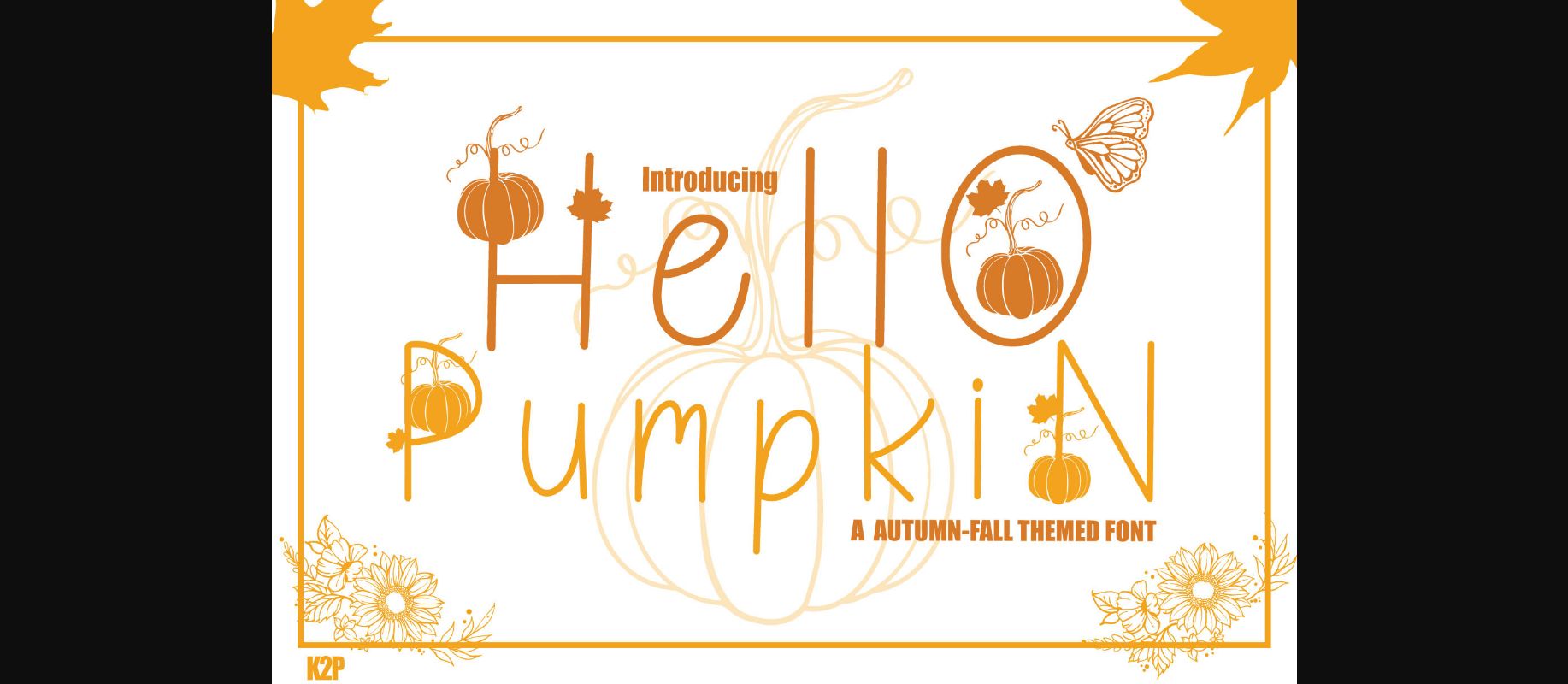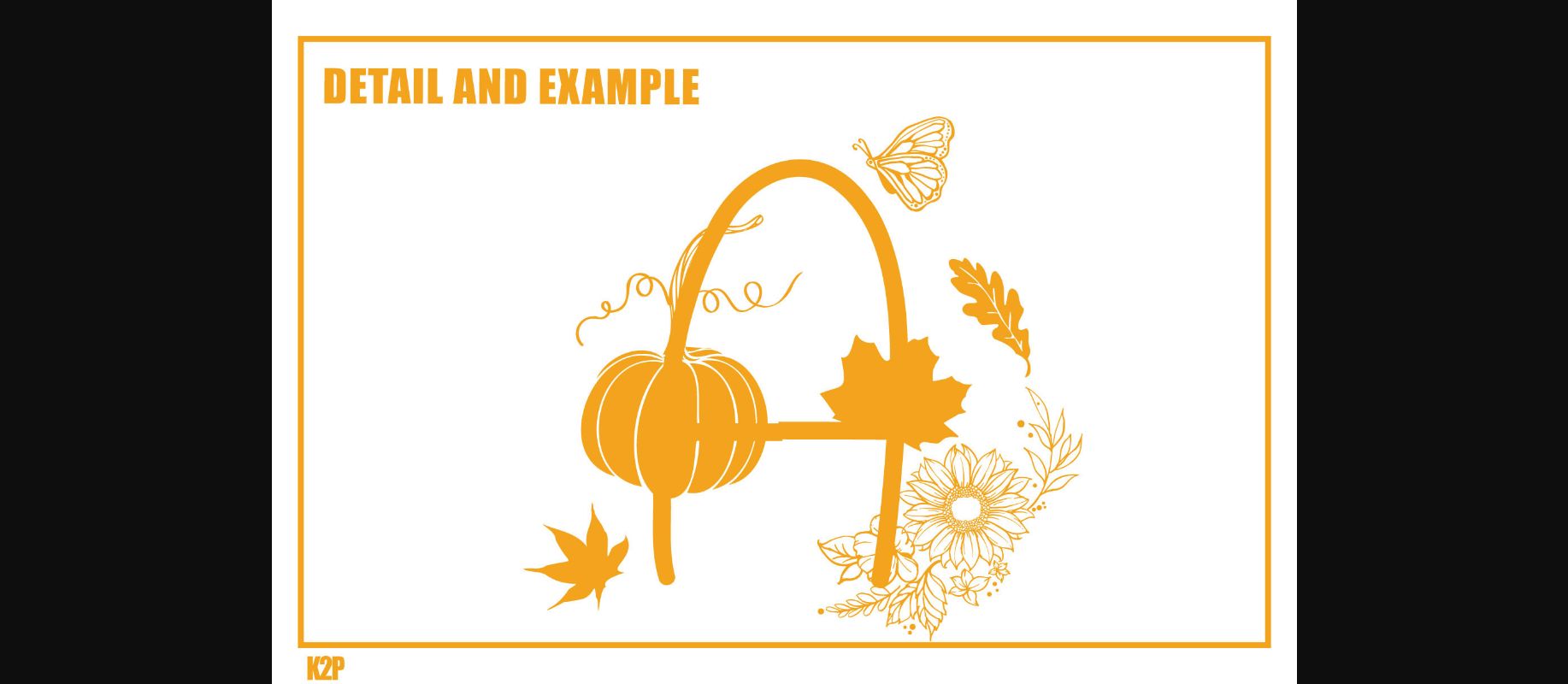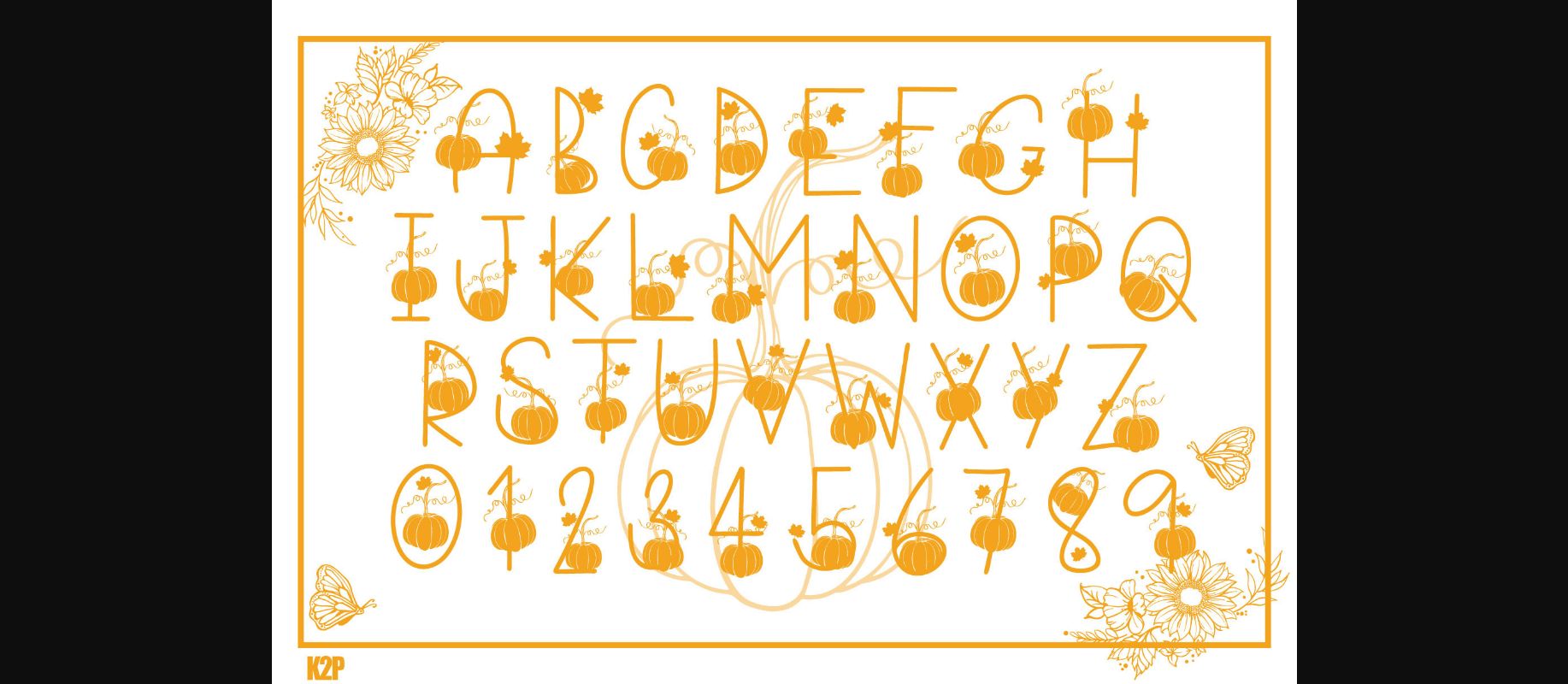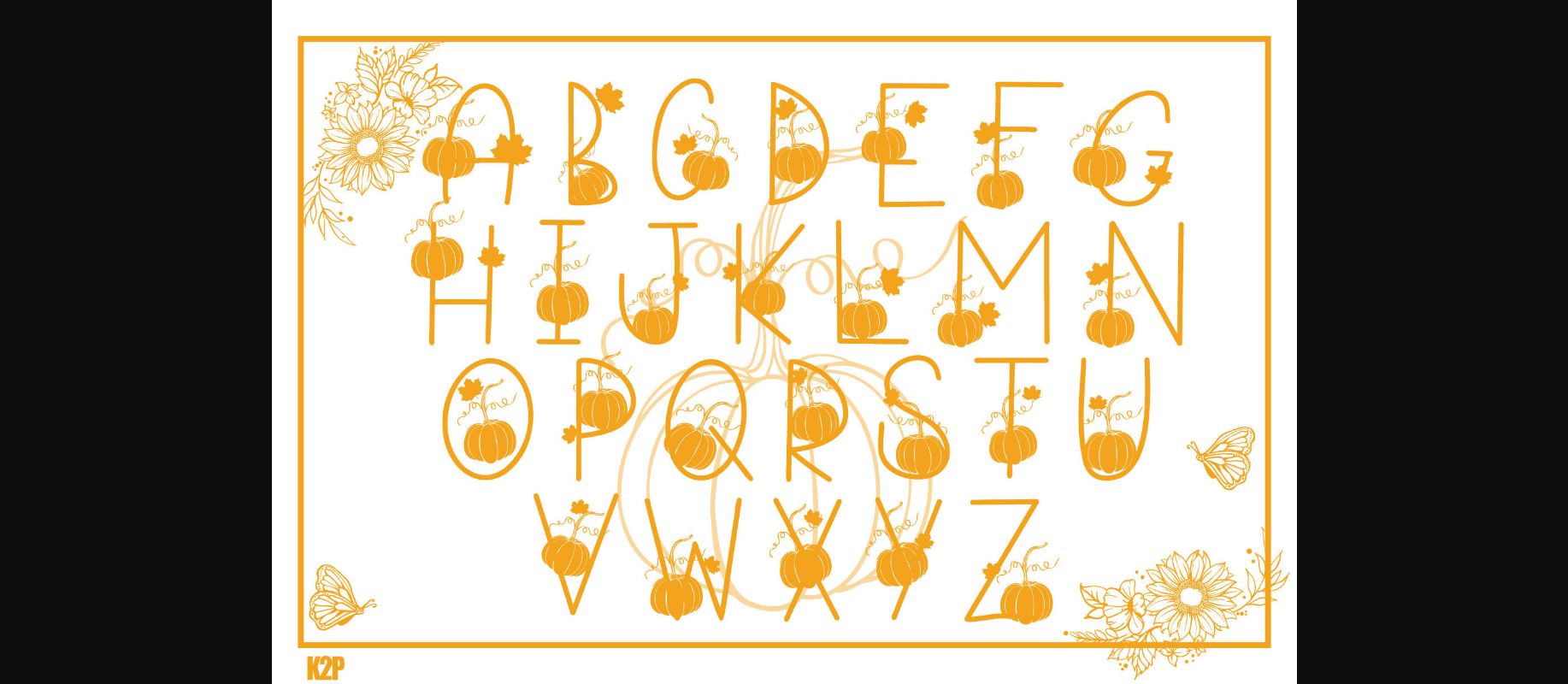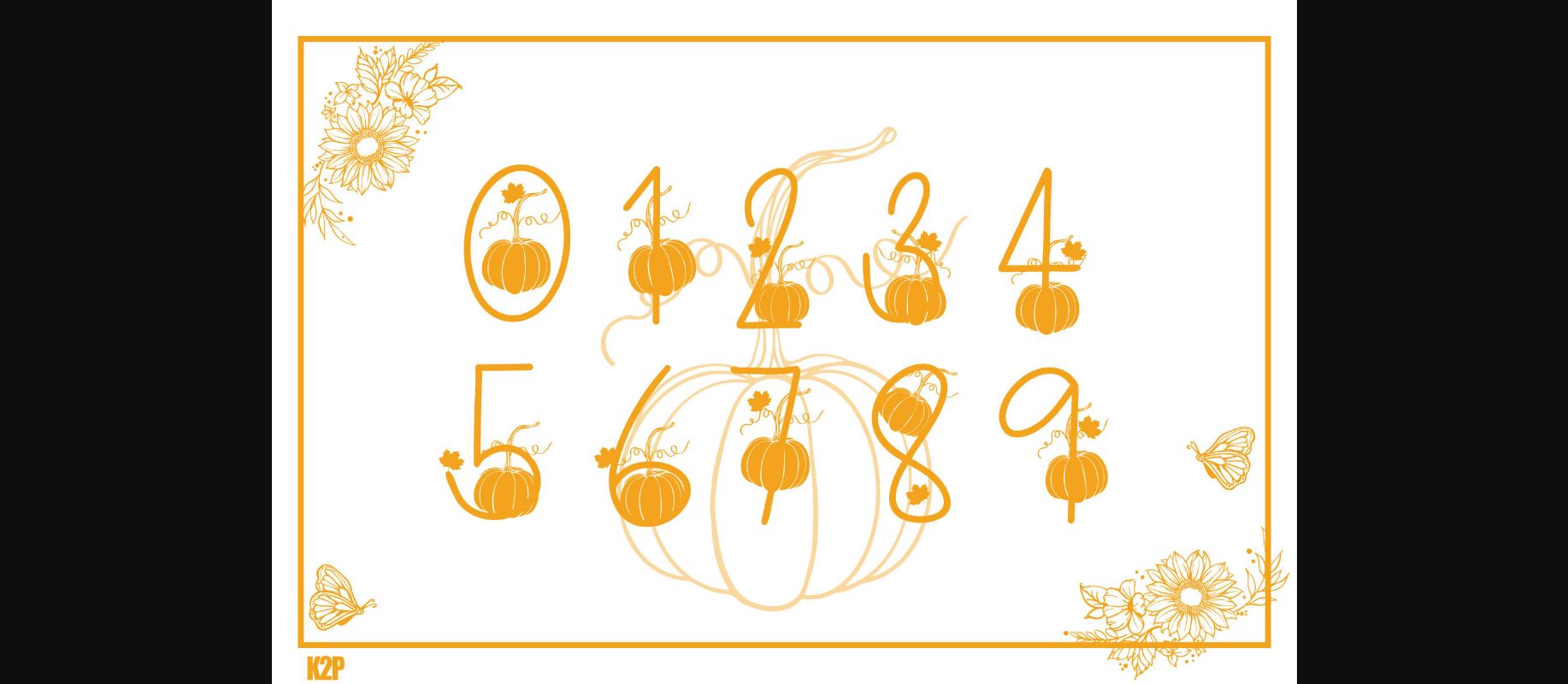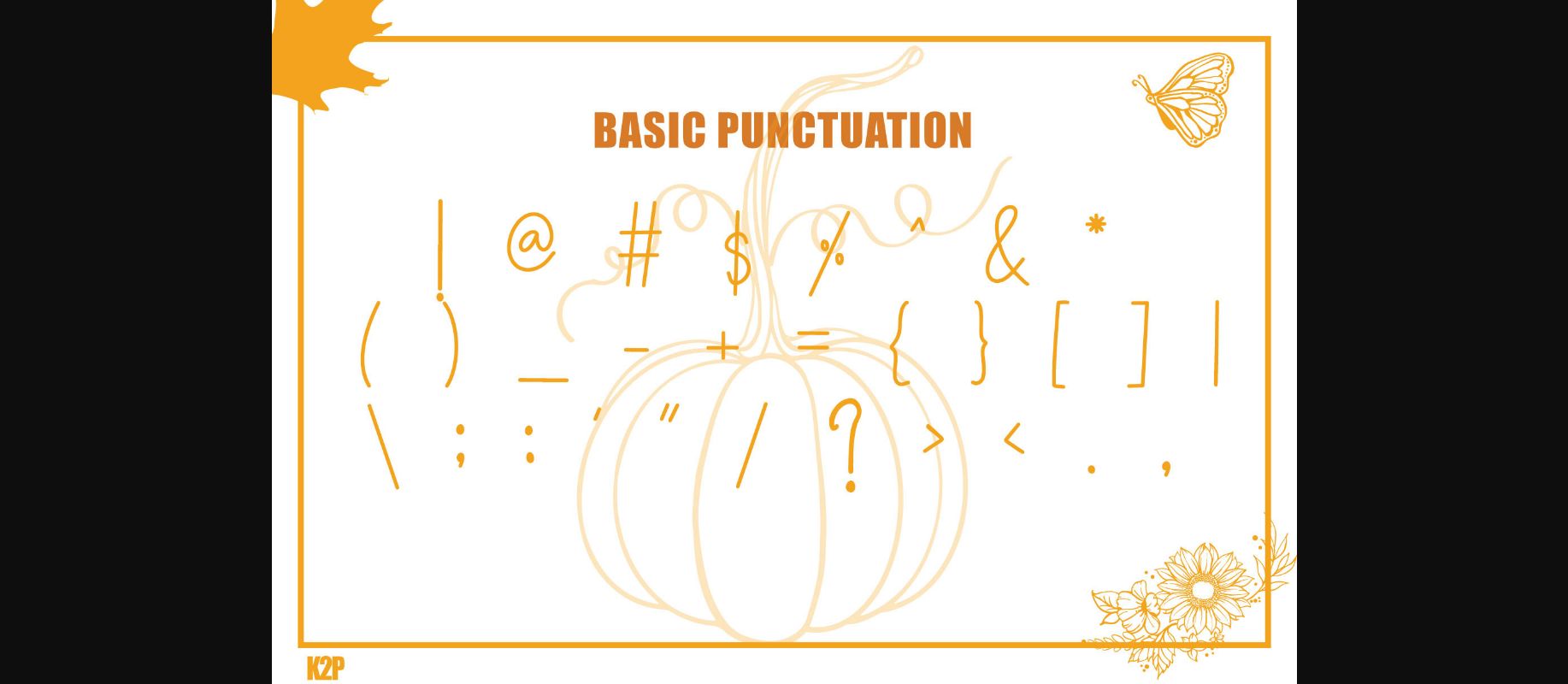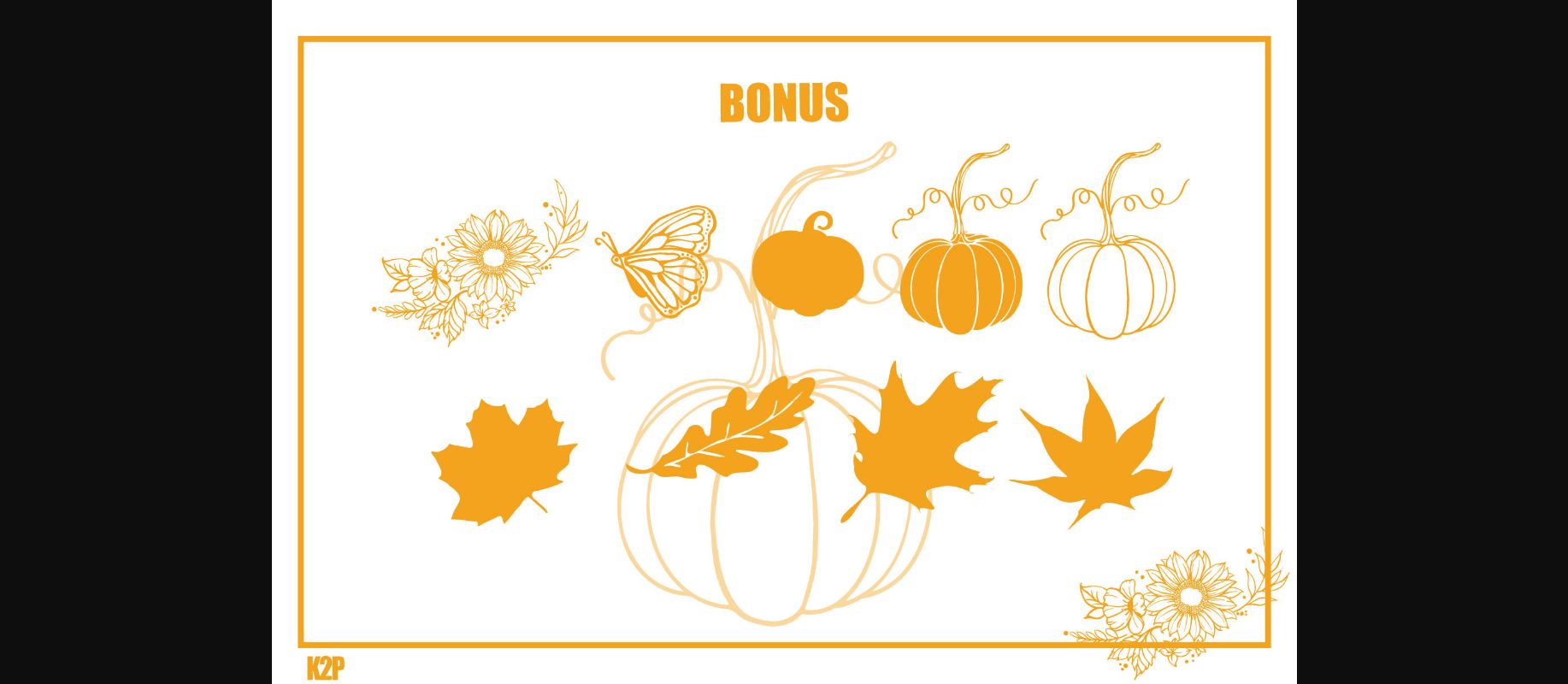
Hello Pumpkin is a thin lettered and incredibly cute decorative font. It can be used for various design ideas, particularly those related to the Fall season.